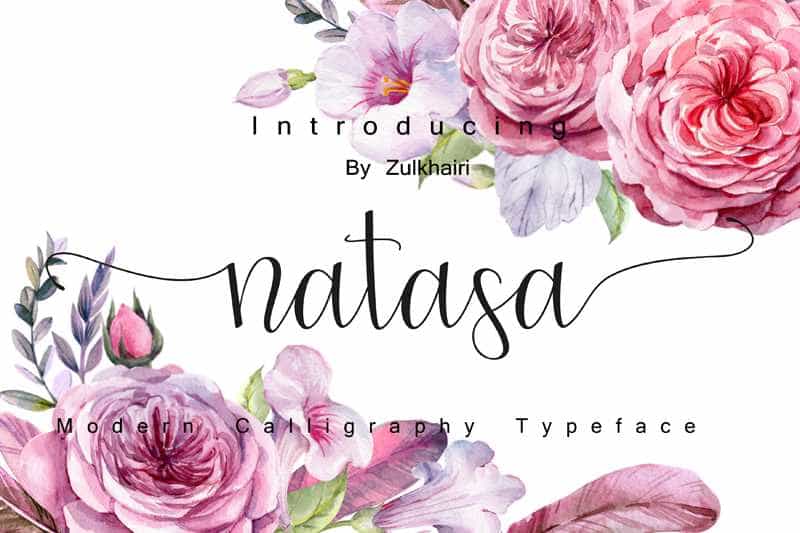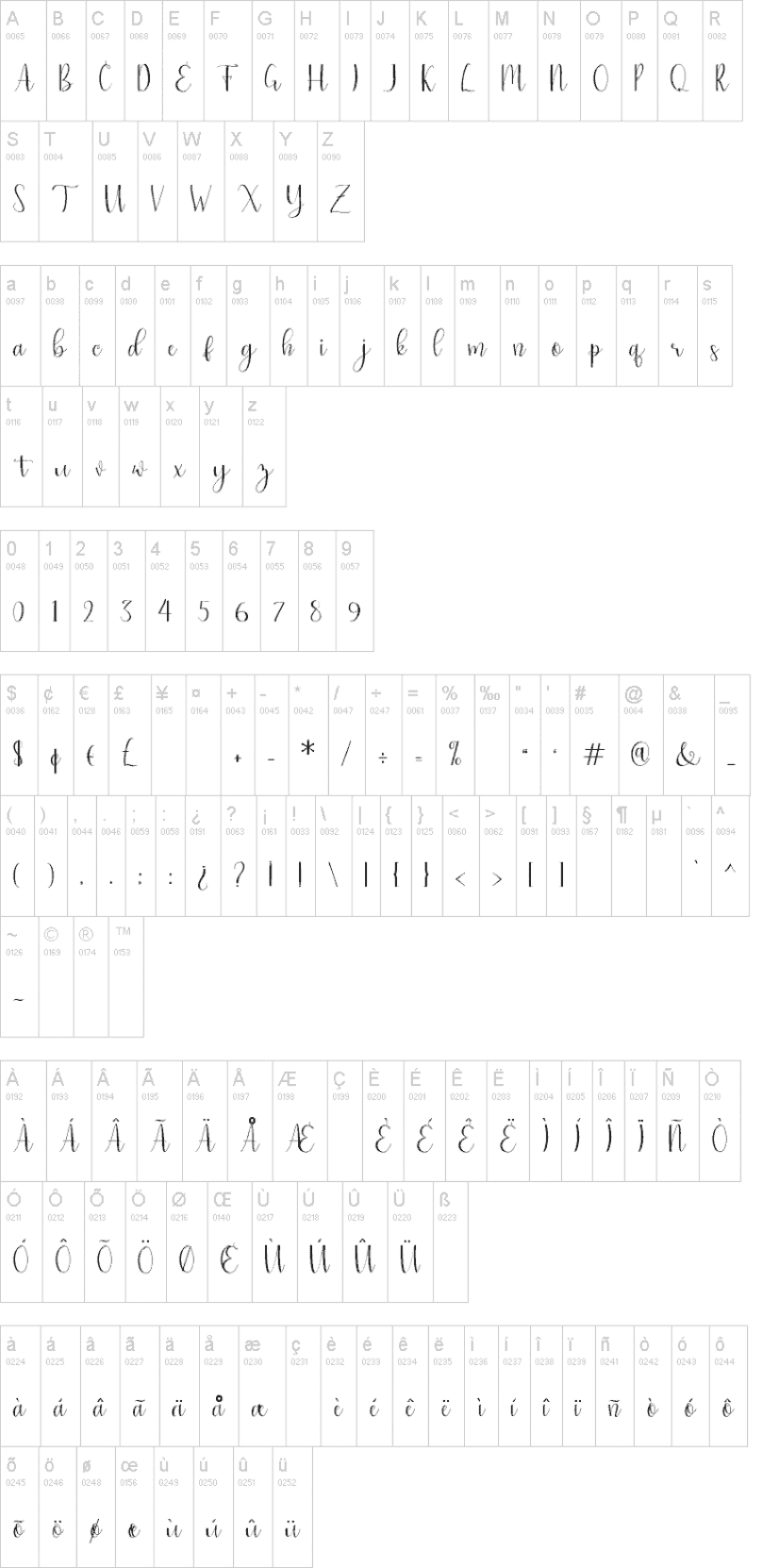
Introducing Natasa Script. Natasa Script is a new fresh & modern script with a handmade calligraphy style, decorated characters and dancing baseline! As lovely on invitation like greeting cards, branding items, business cards, quotes, posters, and many more!! Natasa Script has 337 numbers of glyphs. The other characters were categorized into several Open Type features such as; Swash, Stylistic Sets, Stylistic Alternates, and Contextual Alternates.